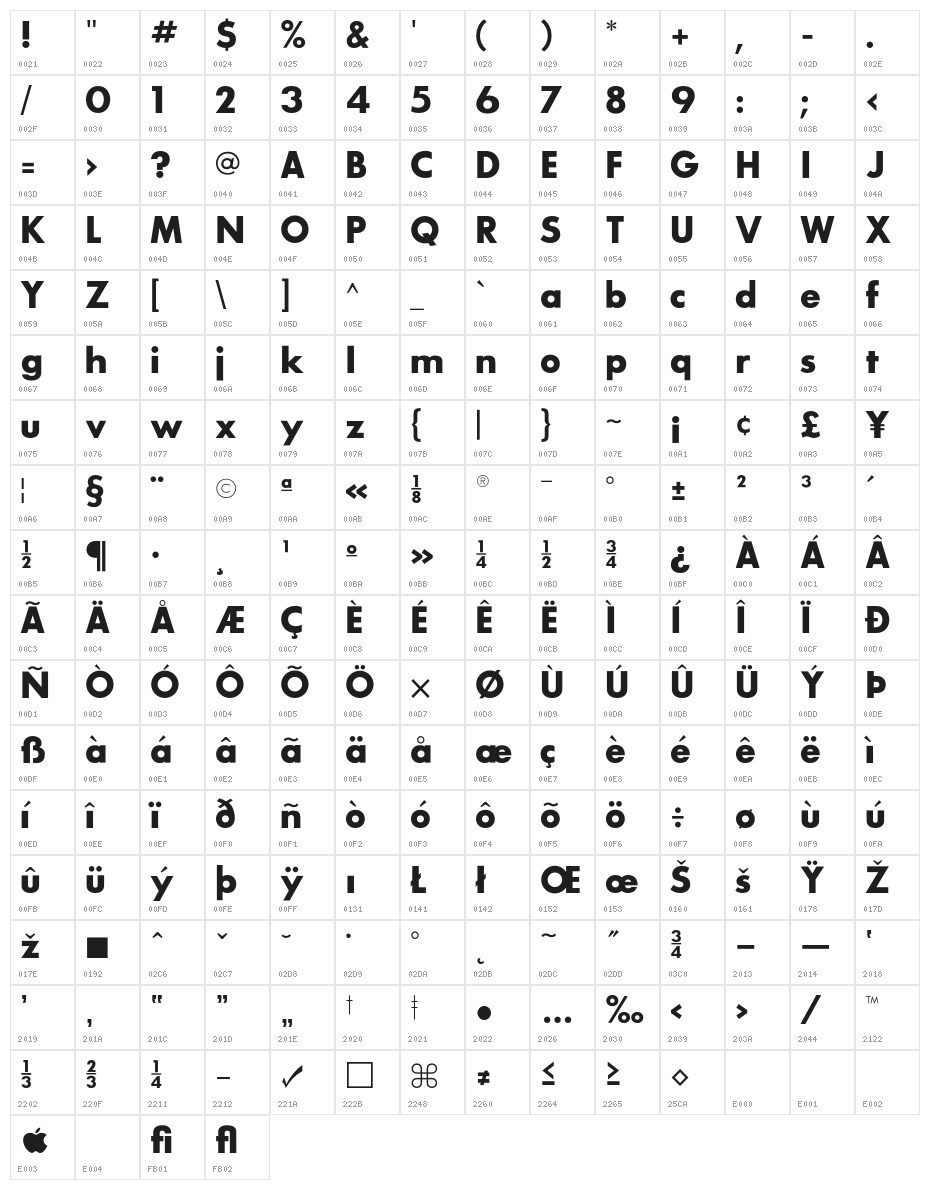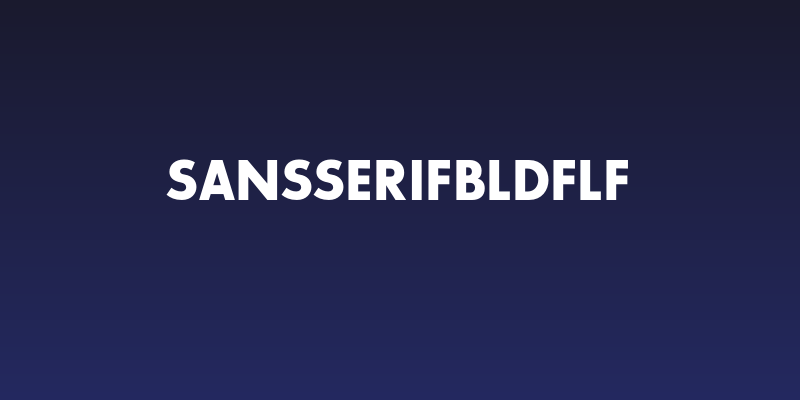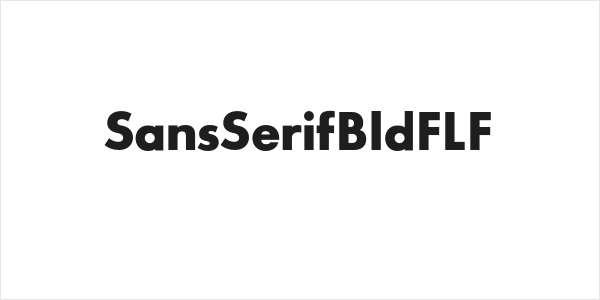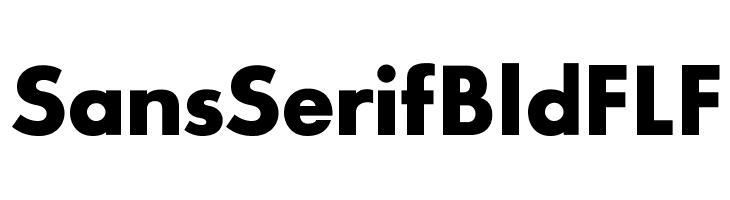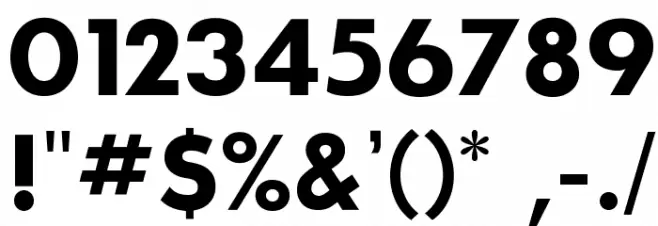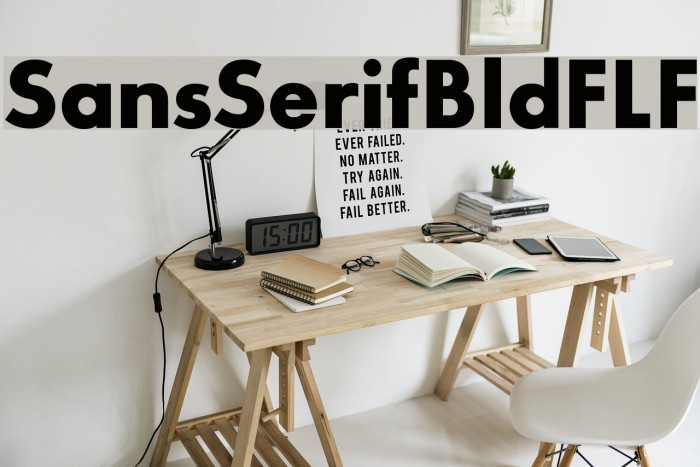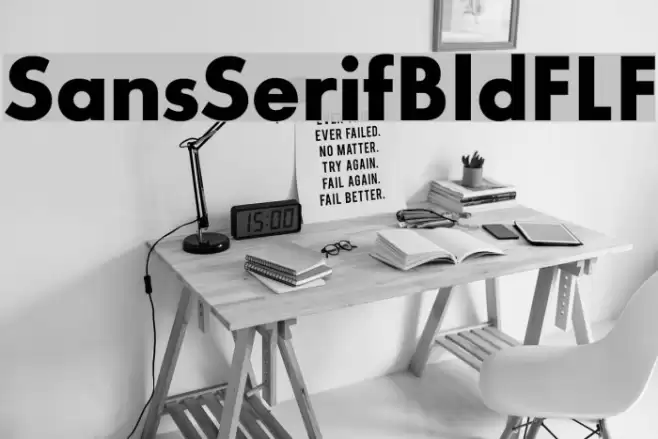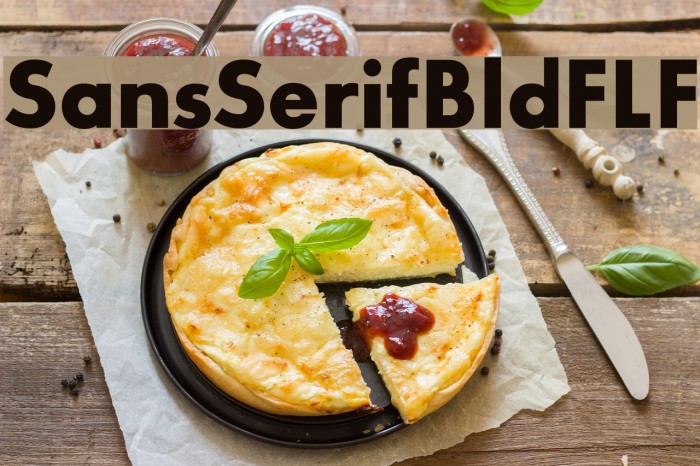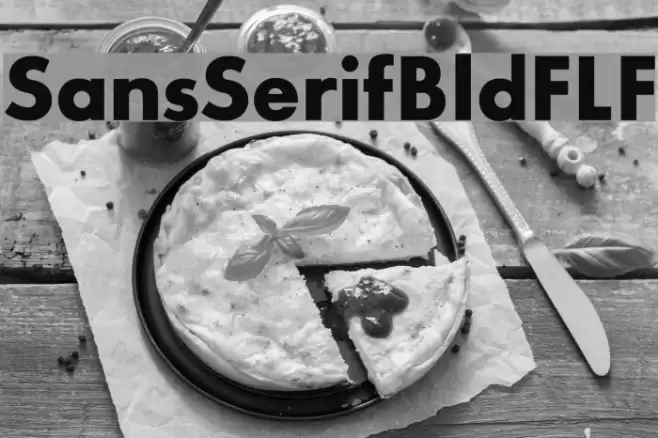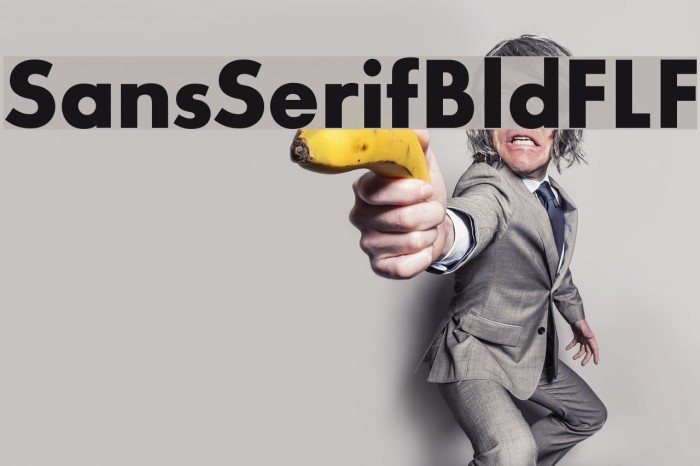
SansSerifBldFLF Font
SansSerifBldFLF Description
This font features a bold and clean sans-serif style, characterized by its strong geometric shapes and uniform stroke widths. The uppercase and lowercase letters are well-proportioned, with a modern and minimalistic aesthetic. The numerals are clear and easy to read, making them suitable for various applications. Special characters are included, maintaining the font's cohesive look. Its simplicity and clarity make it versatile for both digital and print media.
| Use Case | Headlines, Logos, Digital Interfaces |
| Proposed Projects | Ideal for branding, advertising, headlines, and digital interfaces where clarity and impact are essential. |